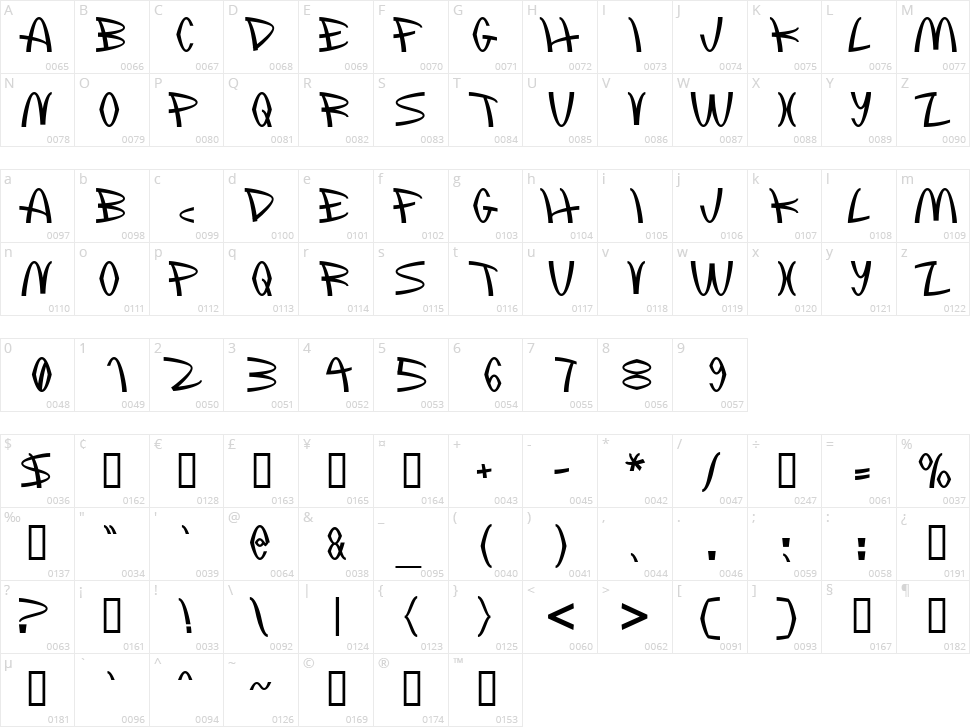
McLawsuit
The font based on the Golden Arches logo for McDonalds.
2000 by Jesse Burgheimer
- Added the Question Mark, by demand. But for what purpose???
Rationale:
This is a font based entirely on the McDonald's "Golden arches." You know, the "M." I just took the original logo and sliced it up and pasted it together into an entire alphabet. It includes A-Z, 0-9, and all general punctuation, and keyboard characters.
The reason this font is called McLawsuit is that Micky-D's is valiant in protecting the intellectual property of their products, and it mostly comes across as pure dominance. But maybe they'll dig this font instead of wanting to slap me with some Cease and Desist order. Have you had your break today?